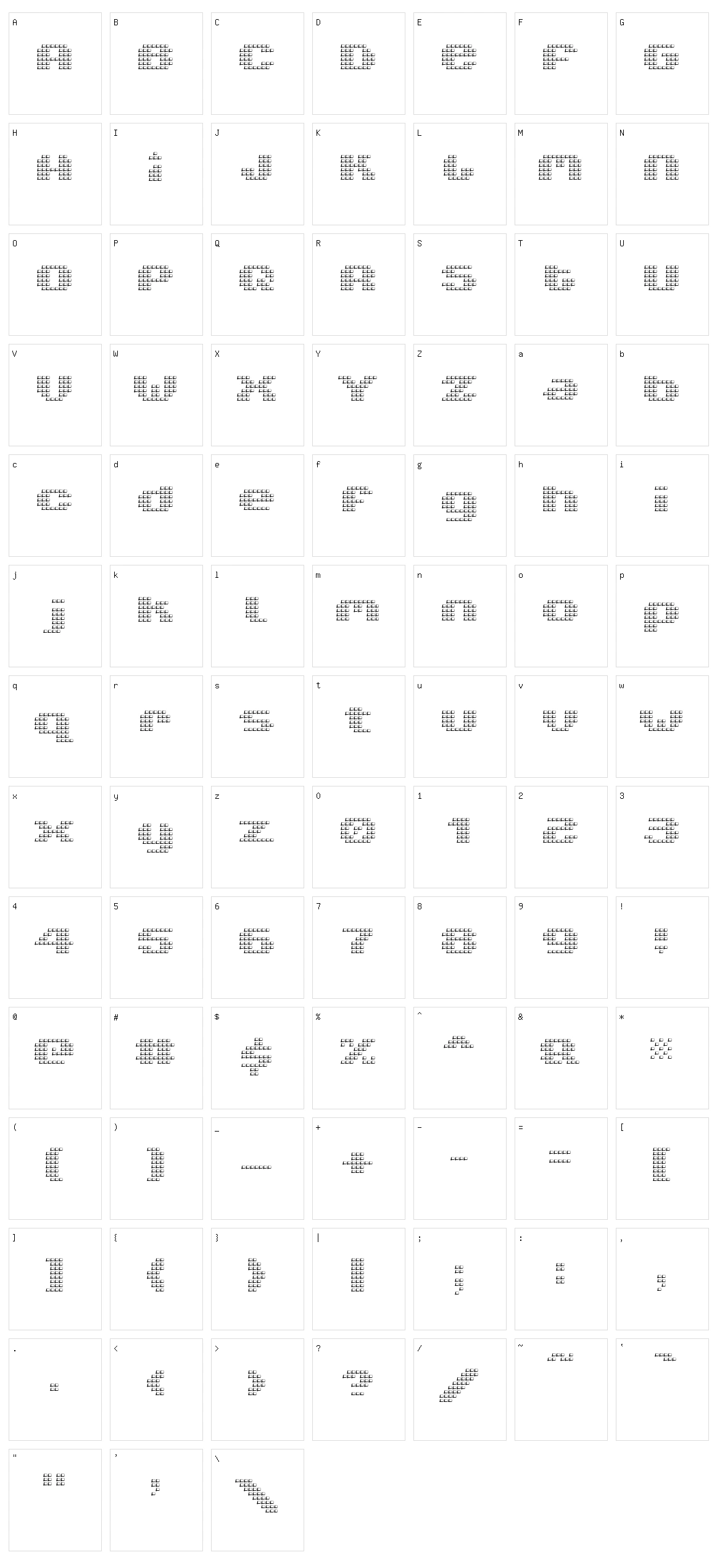
V5 Xtender Loin
Designed by: vFive Digital
Category: LCD & Futuristic
V5 Xtender-Loin
++ Xtender-Loin (REGULAR) ++
Use "as is." Set at large point sizes.
++ Xtender-Loin (BACK and FRONT) ++
These two versions are provided as a
"build it yourself" set, in case you want
to use the font with the counters filled.
Xtender-LoinFront. Xtender-LoinFront
fills the counters, but since the color
is still the same, you will notice no
difference. Proceed to step 5 to change
that.
5. With the text in object 2 still selected,
change its color to something other than
the color used for object 1 (white for
instance). You will now notice the counters
are filled, leaving object 1 as the outline
color.
6. That's it. Group the two objects so you
can move your final text around with ease.
If you edit the text later, remember that
you need to edit it for both text objects.
Also remember that any information associated
with the text needs to be the same for both
text objects (i.e. size, kerning, tracking,
leading, alignment).
7. Experiment at will for other effects.
If you don't need the counters filled, you
should use Xtender-Loin Regular instead.